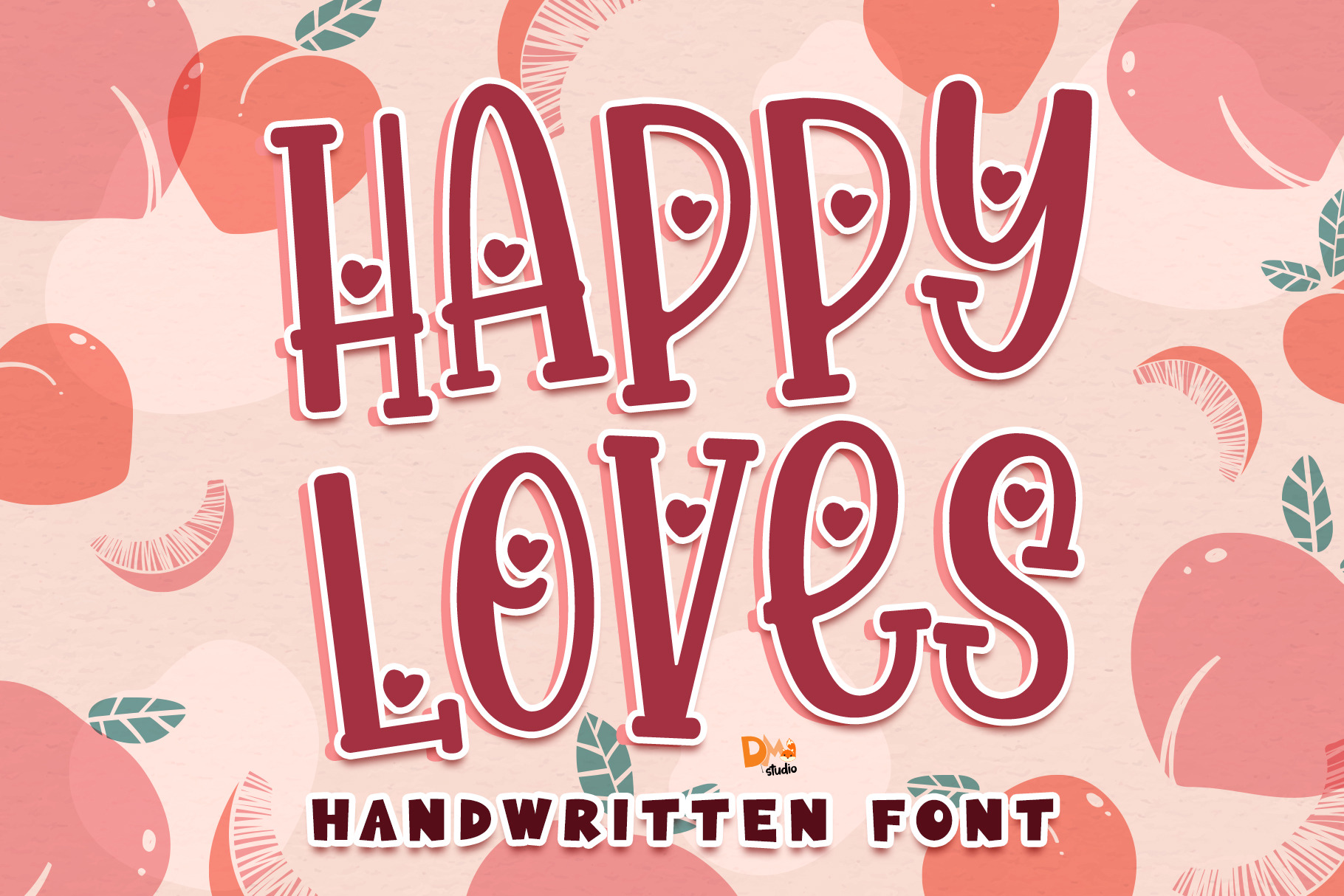
Happy Loves - Handwritten Font
Happy Loves is a lovable handwritten serif font! with the cute and bouncy looks, make your design more playful!
- Uppercase ( Plain Uppercase )
- Lowercase ( Bouncy lowercase )
- Numeric